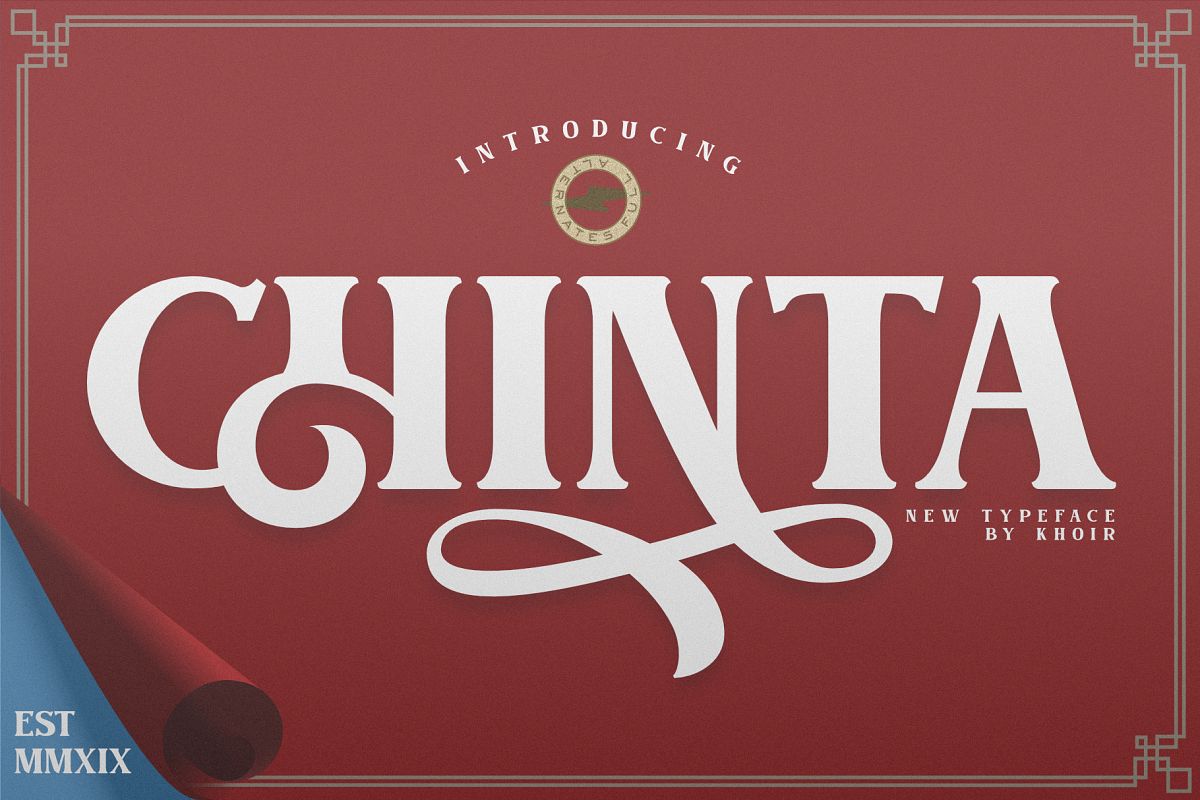
CHINTA
CHINTA TWO
CHINTA ONE
Launched Chinta, new serif type modern fonts wrapped in a soft classic touch combined with crooked and crooked alternative fonts, will make it one of the conveniences to explore various types of designs.With a soft touch but does not leave an elegant impression, this font is suitable for using logos, food design, weddings, branding needs, posters, emblems, advertising and much more. so what are you waiting for?What's included?